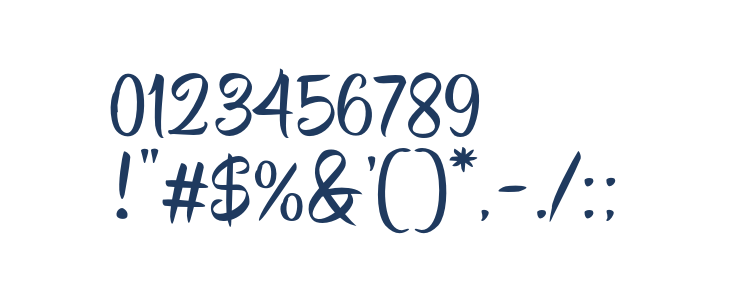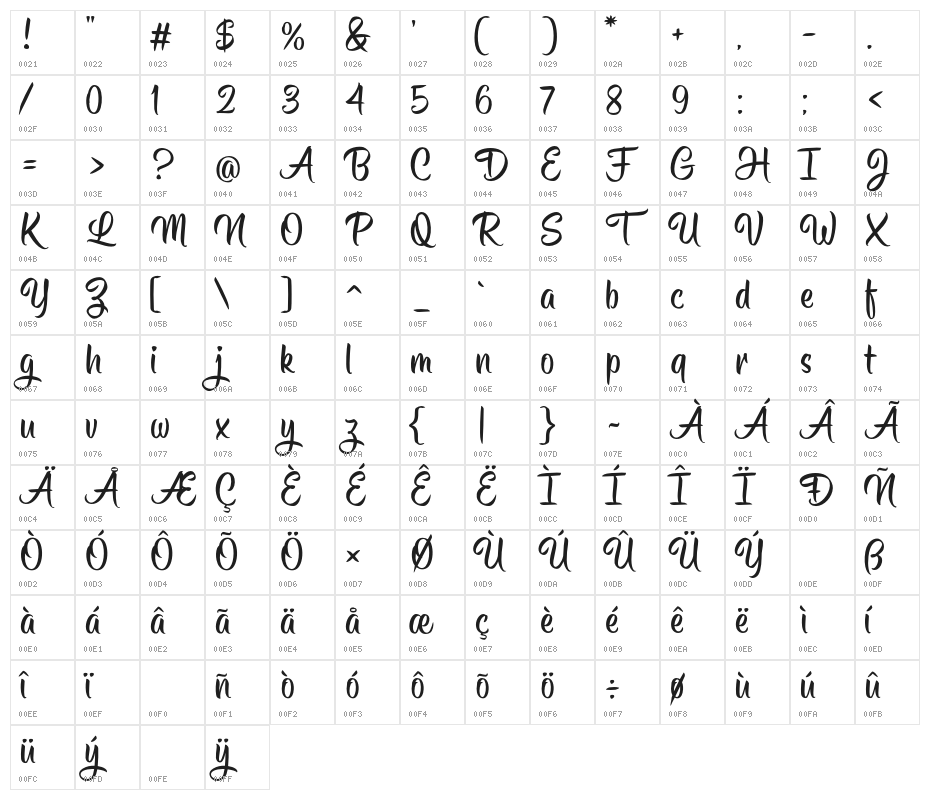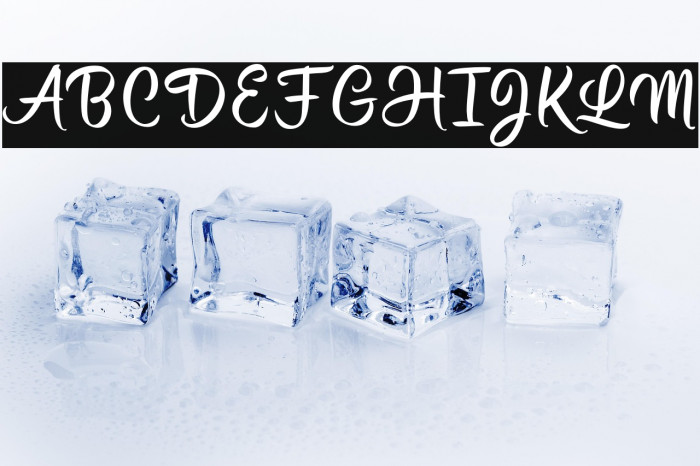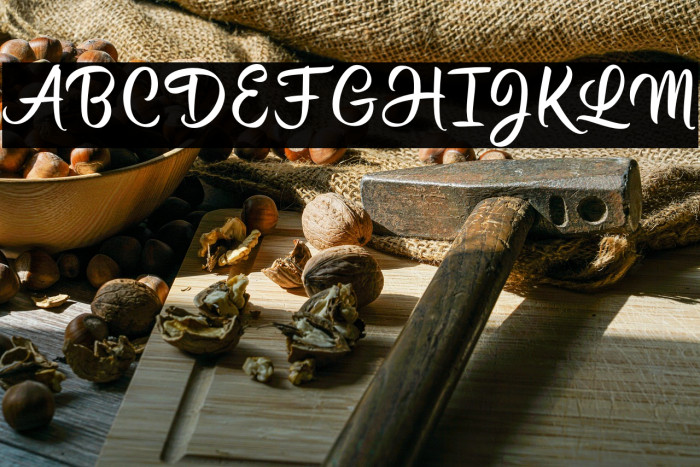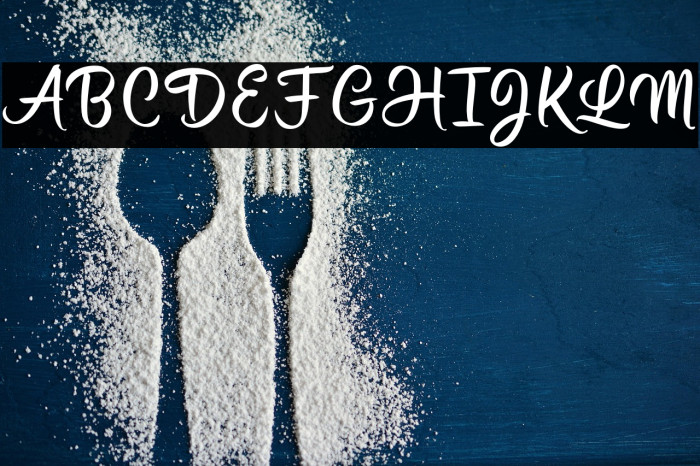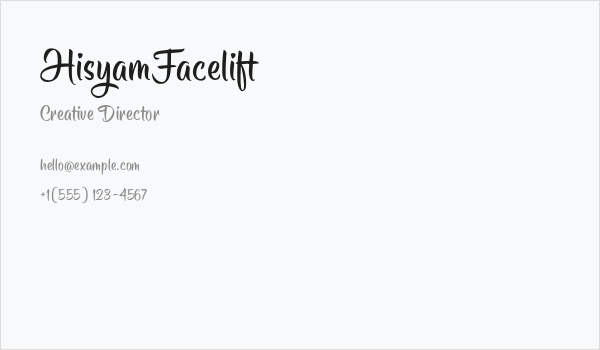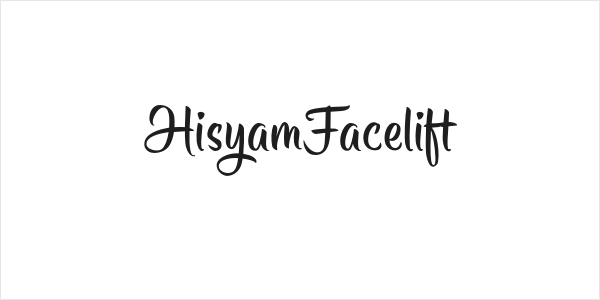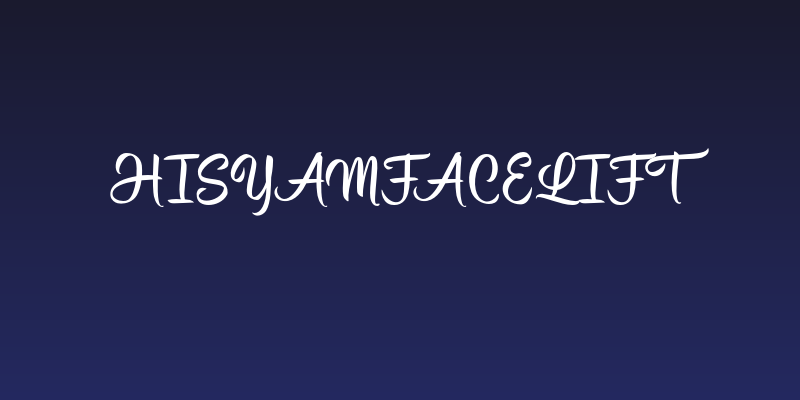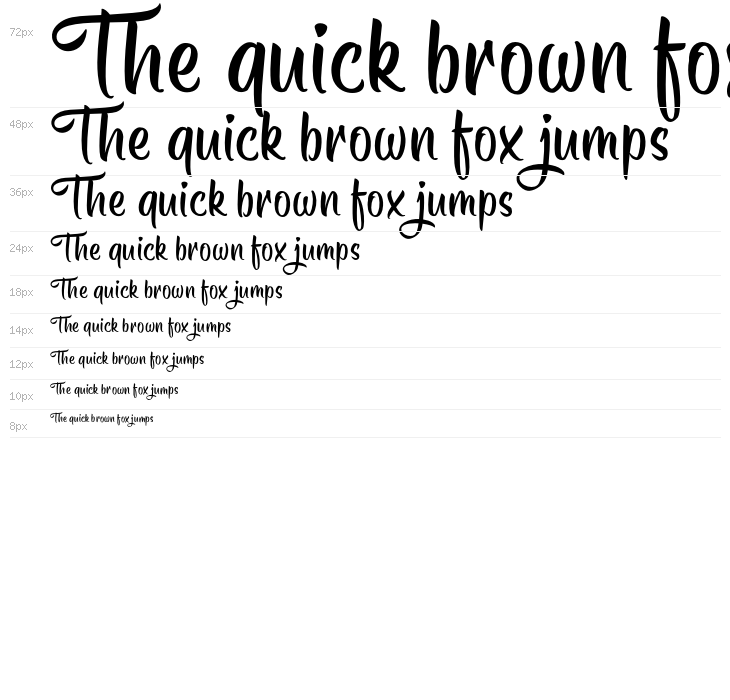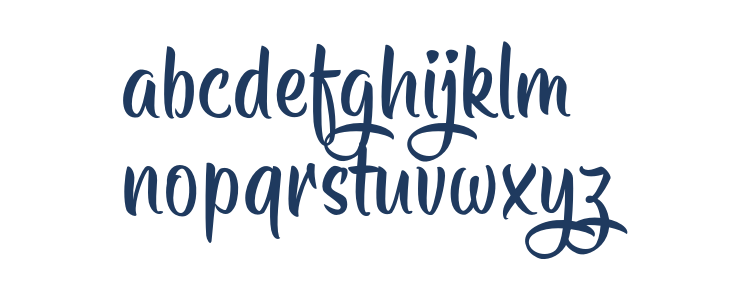
HisyamFacelift Font
HisyamFacelift Description
This font features a lively and expressive script style, characterized by its flowing and interconnected letterforms. The uppercase letters exhibit a graceful, cursive flair with elegant loops and swashes, while the lowercase letters maintain a consistent rhythm with smooth curves and rounded edges. The numerals are bold and slightly playful, complementing the overall whimsical aesthetic. Special characters are thoughtfully designed to match the font's energetic style, making it versatile for creative projects. The font's dynamic nature is ideal for adding a personal touch to any design.